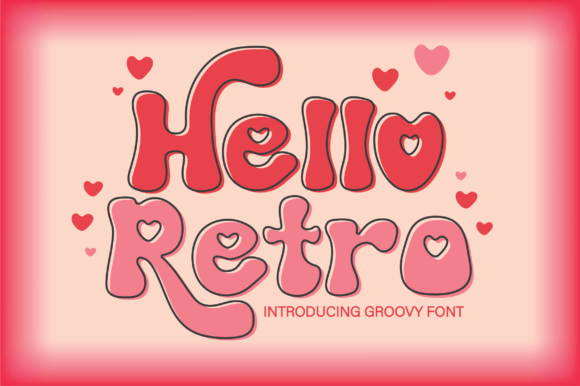
Introducing Hello Retro Font, the ultimate choice for adding a touch of groovy style to your creative projects! Crafted with heart details, this display font is the perfect companion for those seeking to make a bold statement. Designed by the talented team at SVG Bloom, Hello Retro Font will ignite your imagination and leave a lasting impression.
Are you tired of ordinary fonts that fail to capture the essence of your creative vision? Look no further! Hello Retro Font is specifically tailored for those who seek uniqueness and originality. Whether you're designing a logo, crafting personalized merchandise, or simply adding a retro touch to your social media posts, this font is your secret weapon.
With Hello Retro Font, your creative ideas will transcend the ordinary. Its captivating curves and stylish strokes will effortlessly captivate your audience, leaving them craving for more. This font truly has the power to transform any ordinary project into a work of art.
Searching for the best fonts for names on Cricut? Look no further! Hello Retro Font is your answer. Its versatility allows you to create stunning personalized designs with ease. From monograms to intricate lettering, this font will elevate your Cricut projects to new heights. Say goodbye to mundane and hello to retro chic!
But Hello Retro Font is not just another font in the crowd. It's a statement. A statement of your creativity, your passion, and your dedication to standing out from the crowd. When you choose Hello Retro Font, you're not just downloading a font - you're embracing a lifestyle. A lifestyle that celebrates individuality and dares to be different.
So why wait? Unleash your inner creativity and let Hello Retro Font be your ultimate companion. Elevate your designs with its groovy charm, mesmerize your audience with its captivating details, and leave a lasting impression that sets you apart from the rest. Say hello to Hello Retro Font and watch your creative endeavors soar!